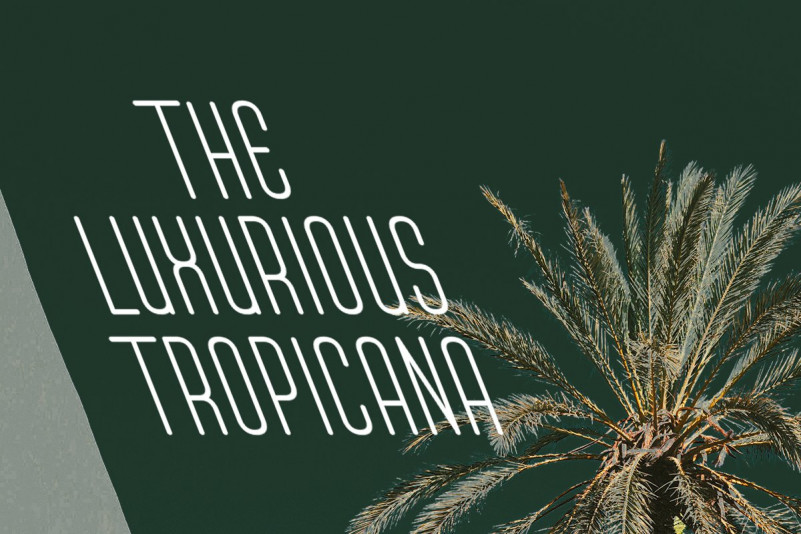
Aquatone Font
Aquatone fonts includes uppercase letters, numerals, a large range of punctuation. sans serif font with modern style. Created for poster, web design, branding, illustrations, badges and some other works.